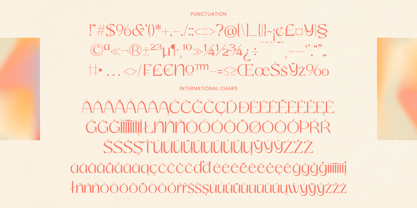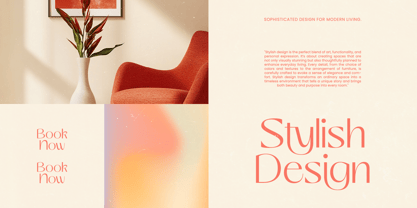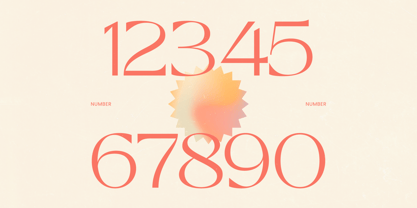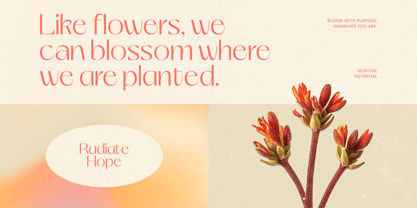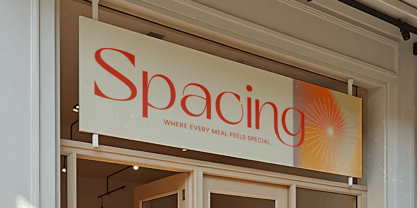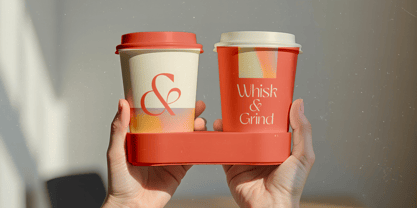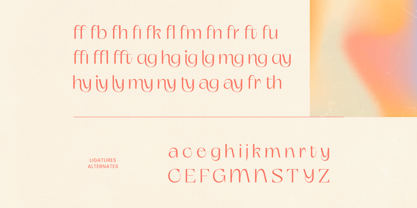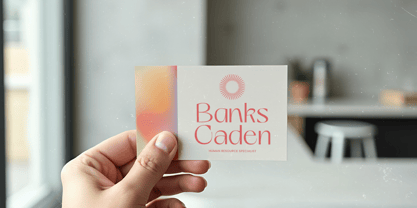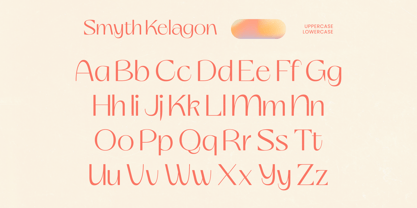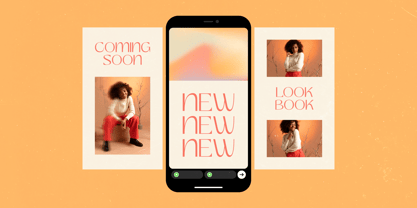
Smyth Kelagon
by Timelesstype Studio
The Smyth Kelagon Font Family was designed by Heru Utama Putra and published by Timelesstype Studio. Smyth Kelagon contains 2 styles and family package options. More about this family
Smyth Kelagon is an elegant thin sans serif font designed to deliver refined sophistication and modern minimalism. With its clean lines, graceful proportions, and delicate stroke contrast, this typeface creates a timeless aesthetic perfect for luxury branding, editorial layouts, fashion campaigns, logos, packaging, and contemporary design projects. Its balanced letterforms offer both clarity and style, making it ideal for headlines as well as refined typographic compositions. Featuring 31 ligatures, 23 alternates, and 384 glyphs, Smyth Kelagon provides versatile creative options while maintaining a sleek and polished appearance. Whether used in print or digital media, this font brings subtle elegance, premium character, and modern harmony to every design.